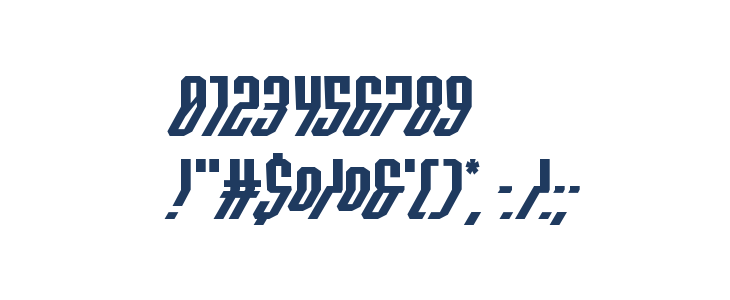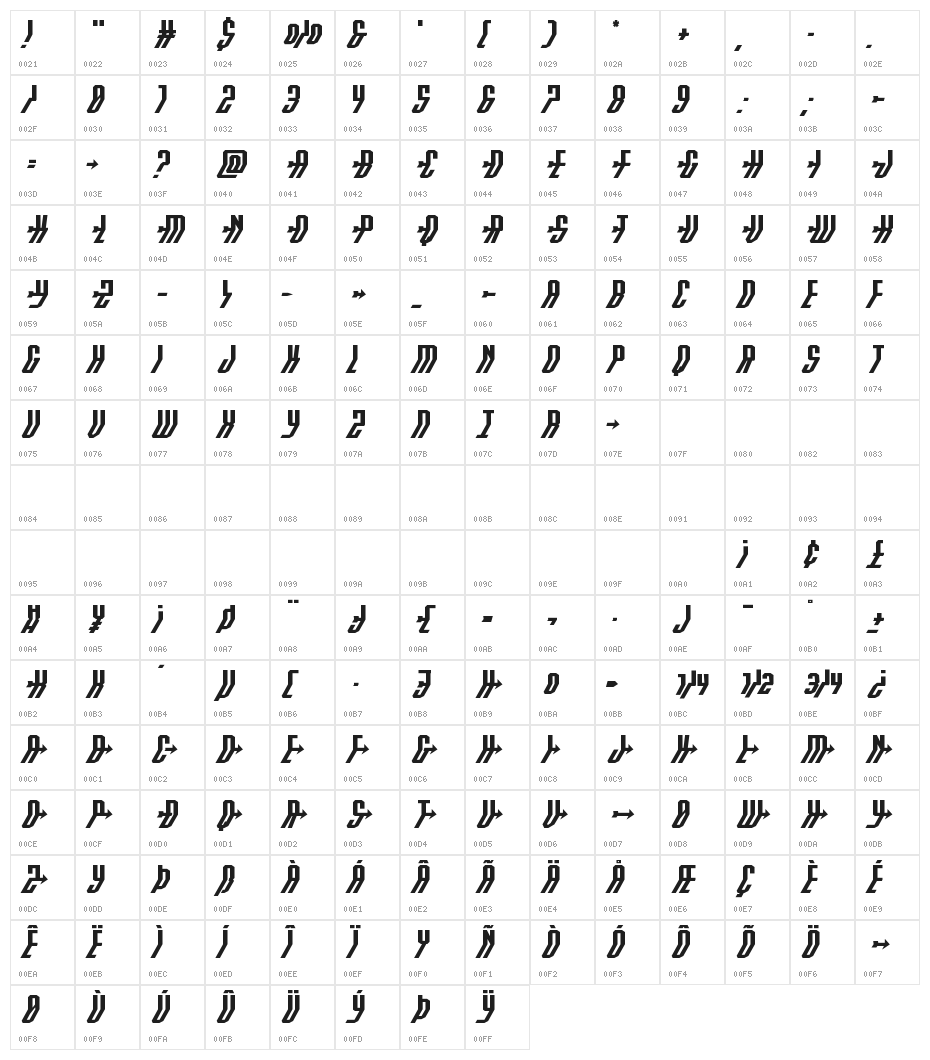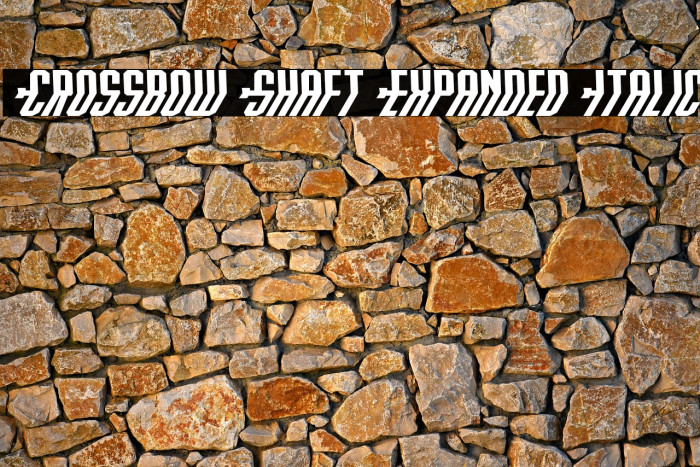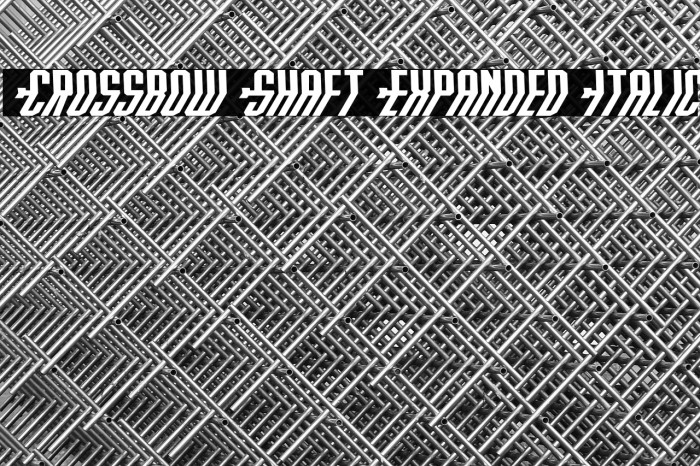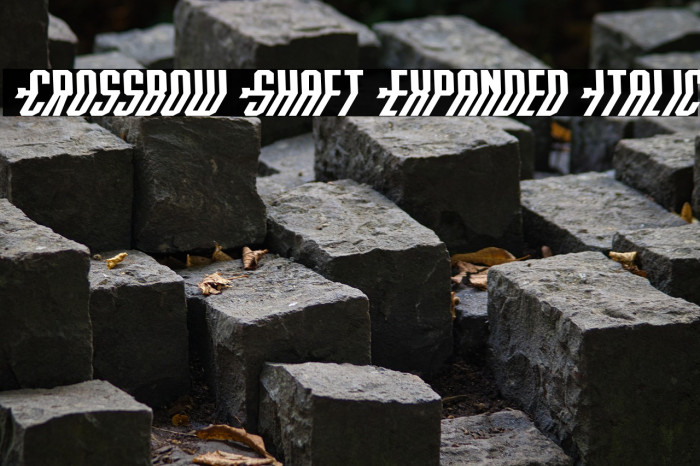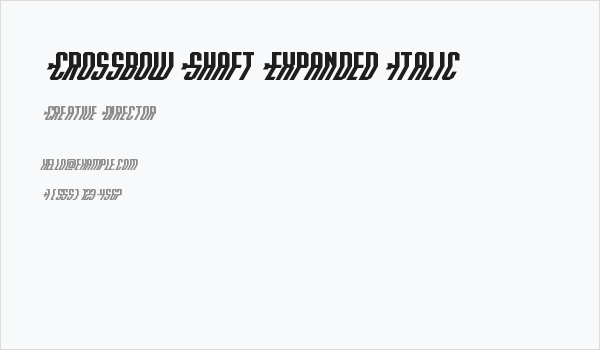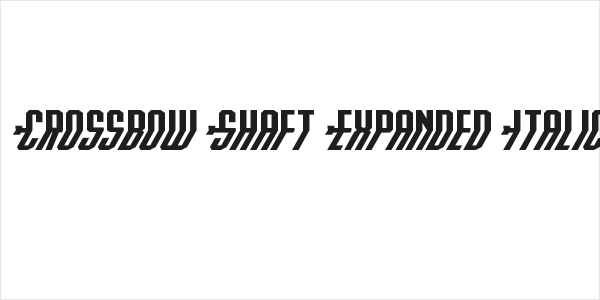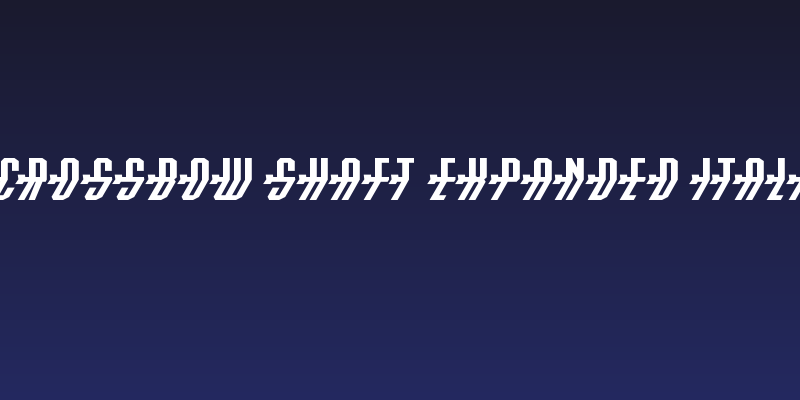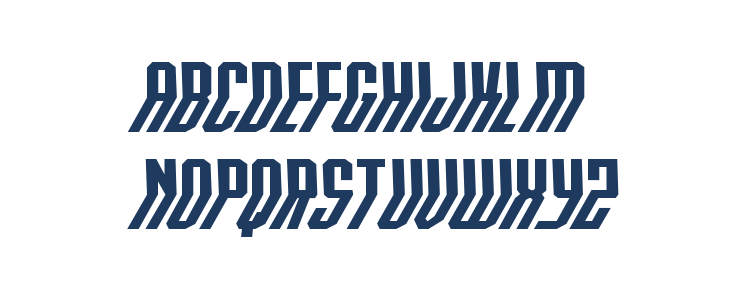
Crossbow Shaft Expanded Italic Font
Crossbow Shaft Expanded Italic Description
This font features a bold and dynamic design with an expanded and italicized style. The characters are sharply angular, giving a sense of motion and energy. The uppercase letters are particularly striking, with a futuristic and aggressive appearance. The numbers and special characters maintain this bold aesthetic, ensuring consistency across all glyphs. The font's expanded width and italic slant enhance its modern and edgy feel, making it ideal for attention-grabbing designs.
| Proposed Projects | Ideal for sports branding, video game titles, action movie posters, and dynamic logo designs. |